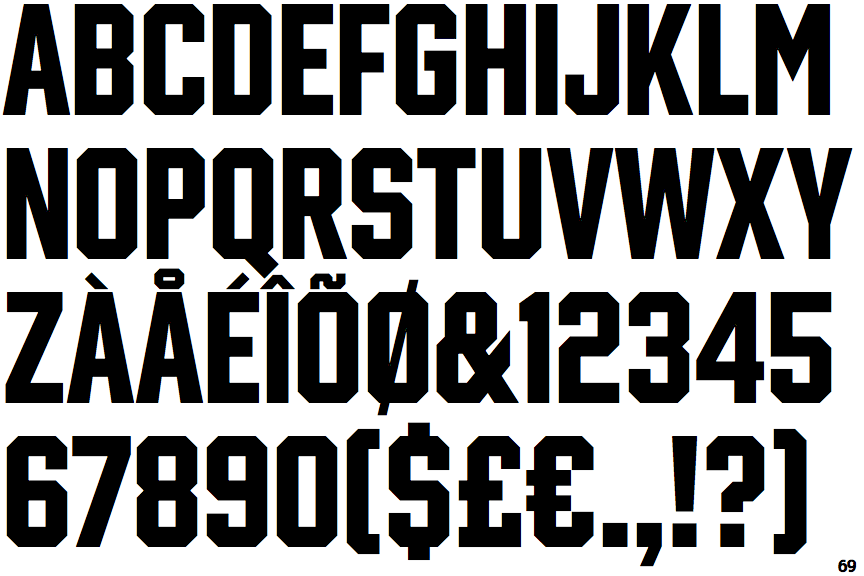
Winner Condensed Bold Font Free - Discover the free winner bold font at free font download ! Winner sans cond bold is a sleek and modern sans serif font designed by christoph koeberlin. With its condensed bold style, this font. Installable on pc, mac, linux, ios, and android platforms.
Winner sans cond bold is a sleek and modern sans serif font designed by christoph koeberlin. With its condensed bold style, this font. Installable on pc, mac, linux, ios, and android platforms. Discover the free winner bold font at free font download !
Winner sans cond bold is a sleek and modern sans serif font designed by christoph koeberlin. Installable on pc, mac, linux, ios, and android platforms. Discover the free winner bold font at free font download ! With its condensed bold style, this font.
Discover the free winner bold font at free font download ! Installable on pc, mac, linux, ios, and android platforms. Winner sans cond bold is a sleek and modern sans serif font designed by christoph koeberlin. With its condensed bold style, this font.
With its condensed bold style, this font. Installable on pc, mac, linux, ios, and android platforms. Winner sans cond bold is a sleek and modern sans serif font designed by christoph koeberlin. Discover the free winner bold font at free font download !
Installable on pc, mac, linux, ios, and android platforms. Discover the free winner bold font at free font download ! Winner sans cond bold is a sleek and modern sans serif font designed by christoph koeberlin. With its condensed bold style, this font.
Winner sans cond bold is a sleek and modern sans serif font designed by christoph koeberlin. With its condensed bold style, this font. Installable on pc, mac, linux, ios, and android platforms. Discover the free winner bold font at free font download !
Installable on pc, mac, linux, ios, and android platforms. Winner sans cond bold is a sleek and modern sans serif font designed by christoph koeberlin. Discover the free winner bold font at free font download ! With its condensed bold style, this font.
Discover the free winner bold font at free font download ! Winner sans cond bold is a sleek and modern sans serif font designed by christoph koeberlin. With its condensed bold style, this font. Installable on pc, mac, linux, ios, and android platforms.
Winner sans cond bold is a sleek and modern sans serif font designed by christoph koeberlin. With its condensed bold style, this font. Discover the free winner bold font at free font download ! Installable on pc, mac, linux, ios, and android platforms.
Discover the free winner bold font at free font download ! Installable on pc, mac, linux, ios, and android platforms. Winner sans cond bold is a sleek and modern sans serif font designed by christoph koeberlin. With its condensed bold style, this font.
With its condensed bold style, this font. Installable on pc, mac, linux, ios, and android platforms. Winner sans cond bold is a sleek and modern sans serif font designed by christoph koeberlin.